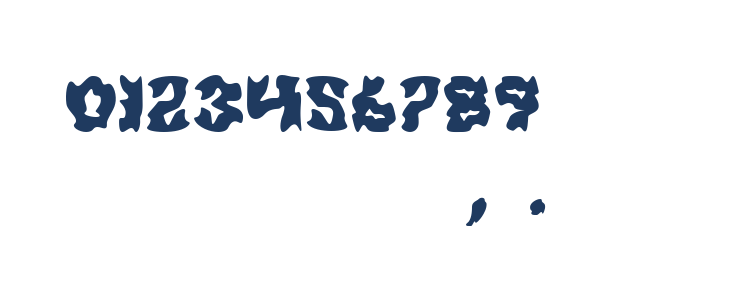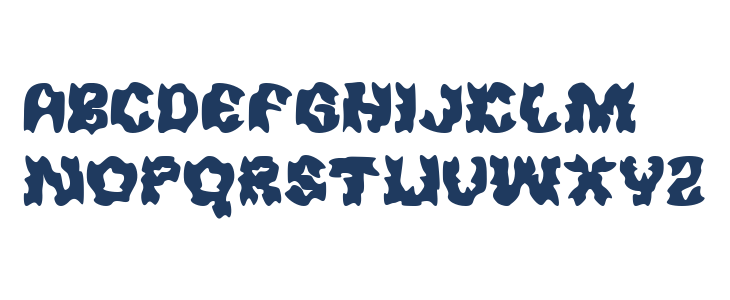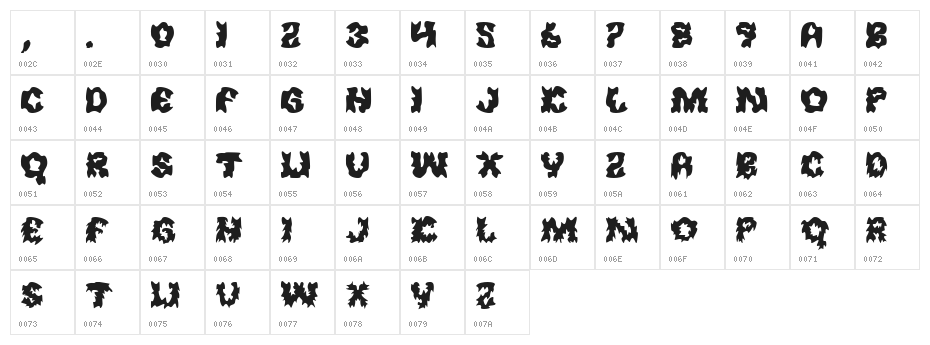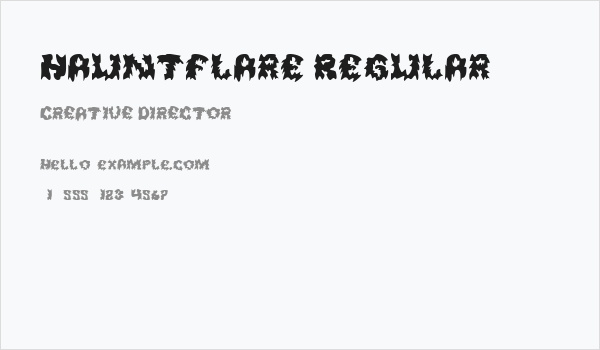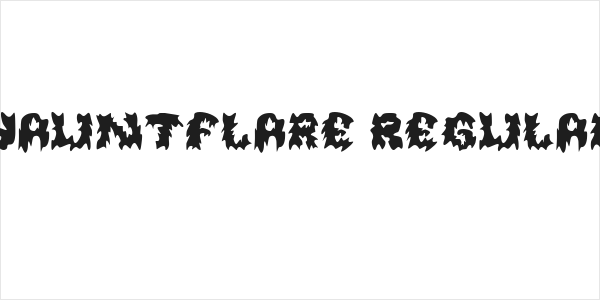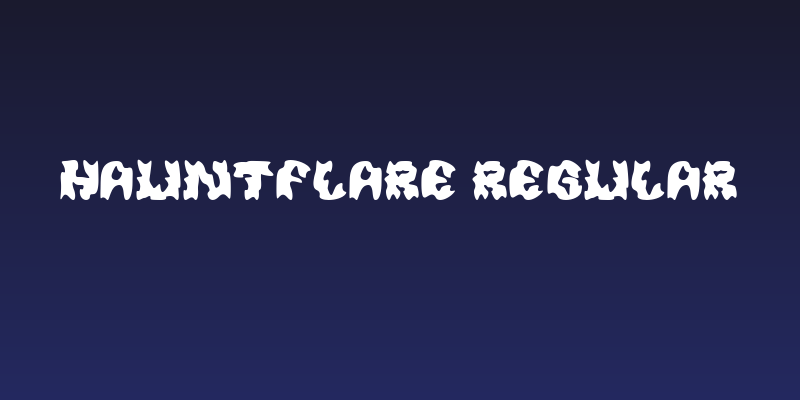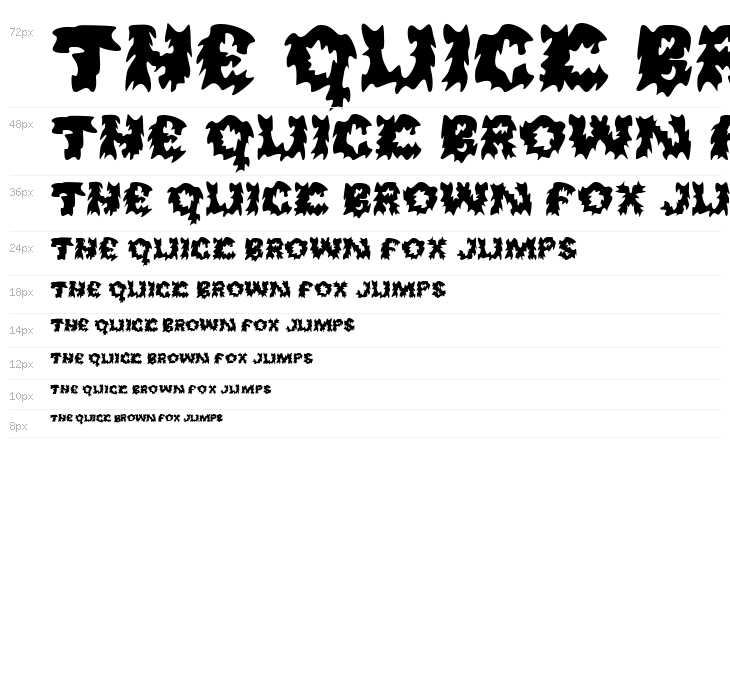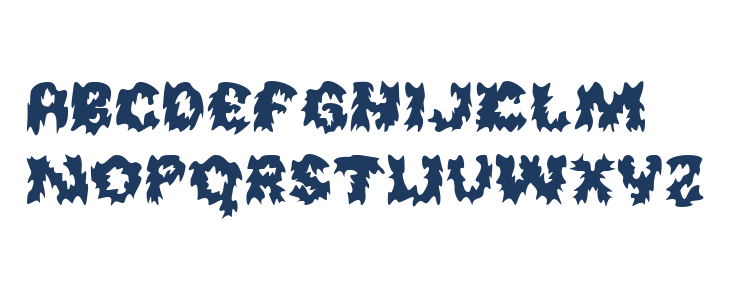
Hauntflare Regular Font
Hauntflare Regular Description
A bold, decorative display font with jagged, flame-like edges and irregular contours, evoking a spooky or haunted atmosphere. The characters are wide and heavily stylized, with high visual impact and strong presence.
| Overall Style | Decorative, Spooky, Thematic |
| Use Case | Headlines, Posters, Logos, Event Titles |
| Proposed Projects | Halloween posters, horror movie titles, haunted house signage, themed party invitations, spooky event branding. |